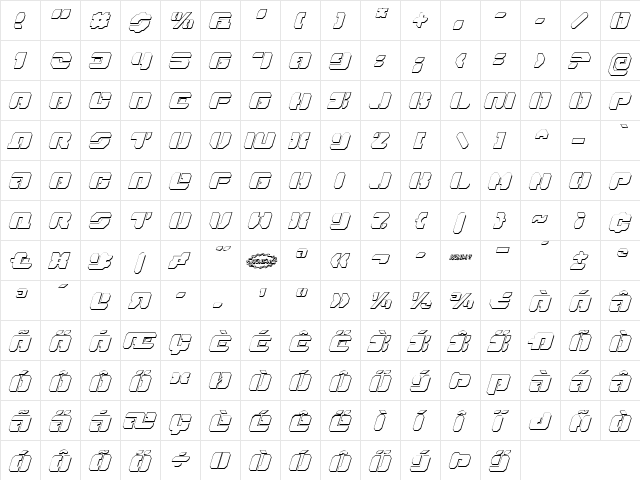
Dan Stargate Outline Italic Italic
Design Context for Dan Stargate Outline Italic Typeface
Dan Stargate Outline Italic brings ornamental detail and strong personality to headlines and identities, where visual impact matters more than quiet functionality. Its italic angle brings a sense of urgency and motion to the letterforms.
Font Pairing: Pair with a clean neutral sans-serif for body copy to let Dan Stargate Outline Italic's character lead without overwhelming the composition.
Pro Tip: Treat Dan Stargate Outline Italic as the centrepiece of your typographic hierarchy. One strong heading set in a decorative face can carry an entire layout.